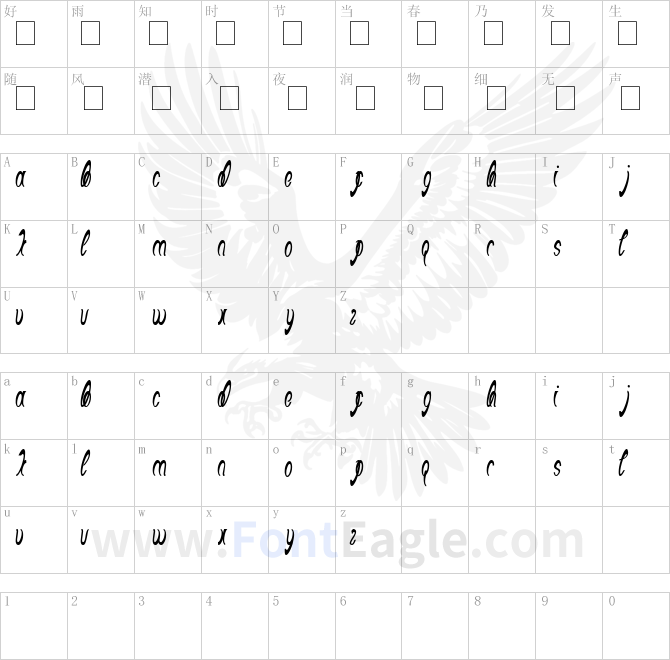
- Font name:Black Stallion
- Font Subfamily ID:Black Stallion:Version 1.00
- Font Full Name:Black Stallion
- Font Version:Version 1.00 July 11, 2013, initial release
- Postscript:BlackStallion